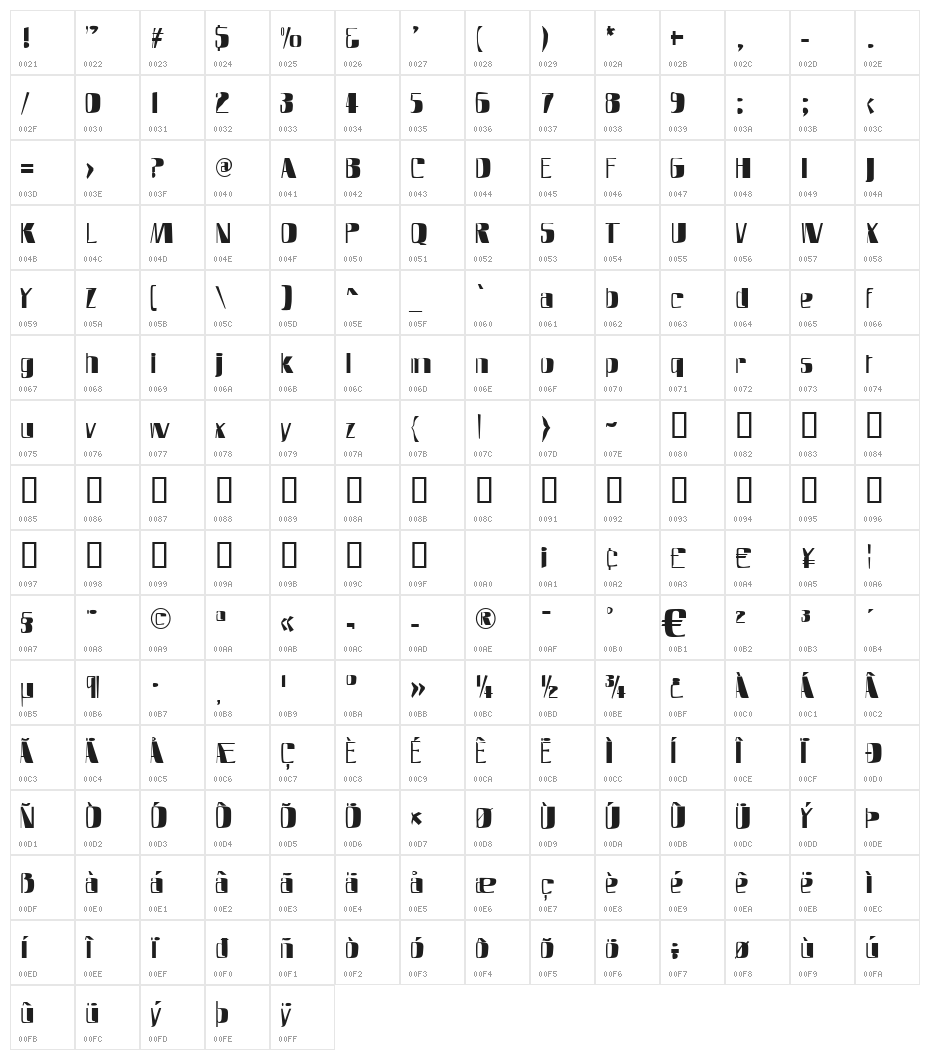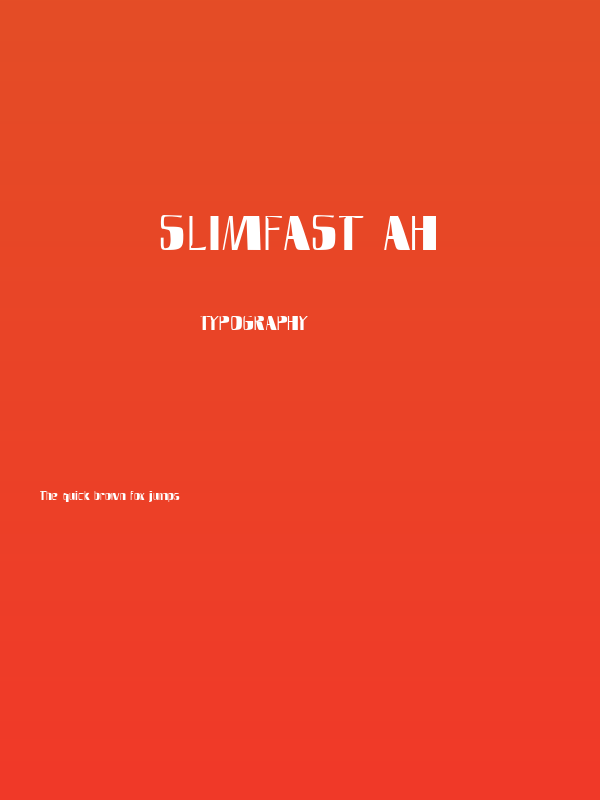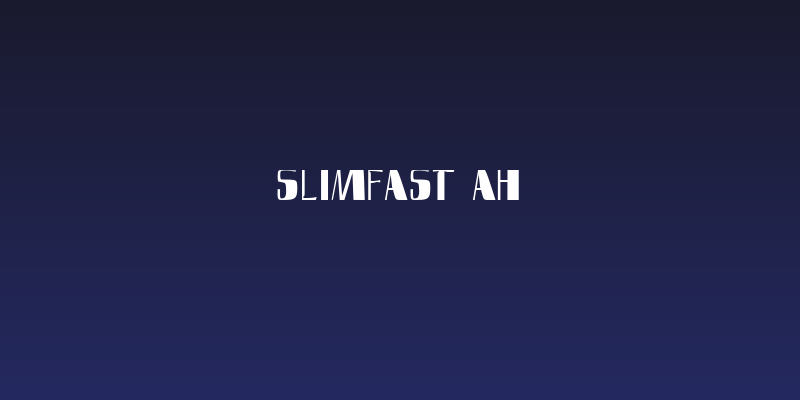
SlimFast AH Font
SlimFast AH Description
This font features a bold and dynamic style with a modern twist. The characters are uniquely designed with varying stroke thicknesses, creating a high contrast that draws attention. The uppercase letters exhibit a strong presence with angular and geometric shapes, while the lowercase letters maintain a consistent style, offering a cohesive look. The numerals and special characters follow the same design principles, ensuring uniformity across all glyphs. This font's distinct appearance makes it ideal for projects that require a striking and contemporary aesthetic.